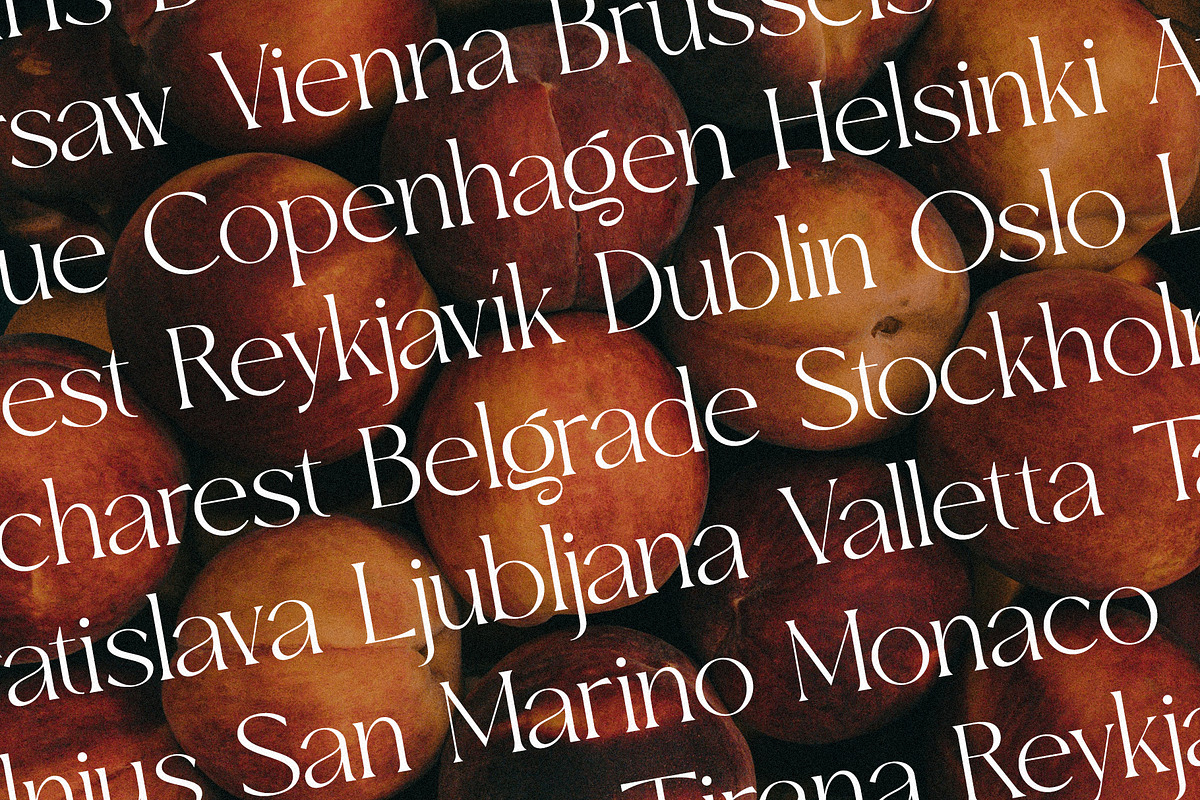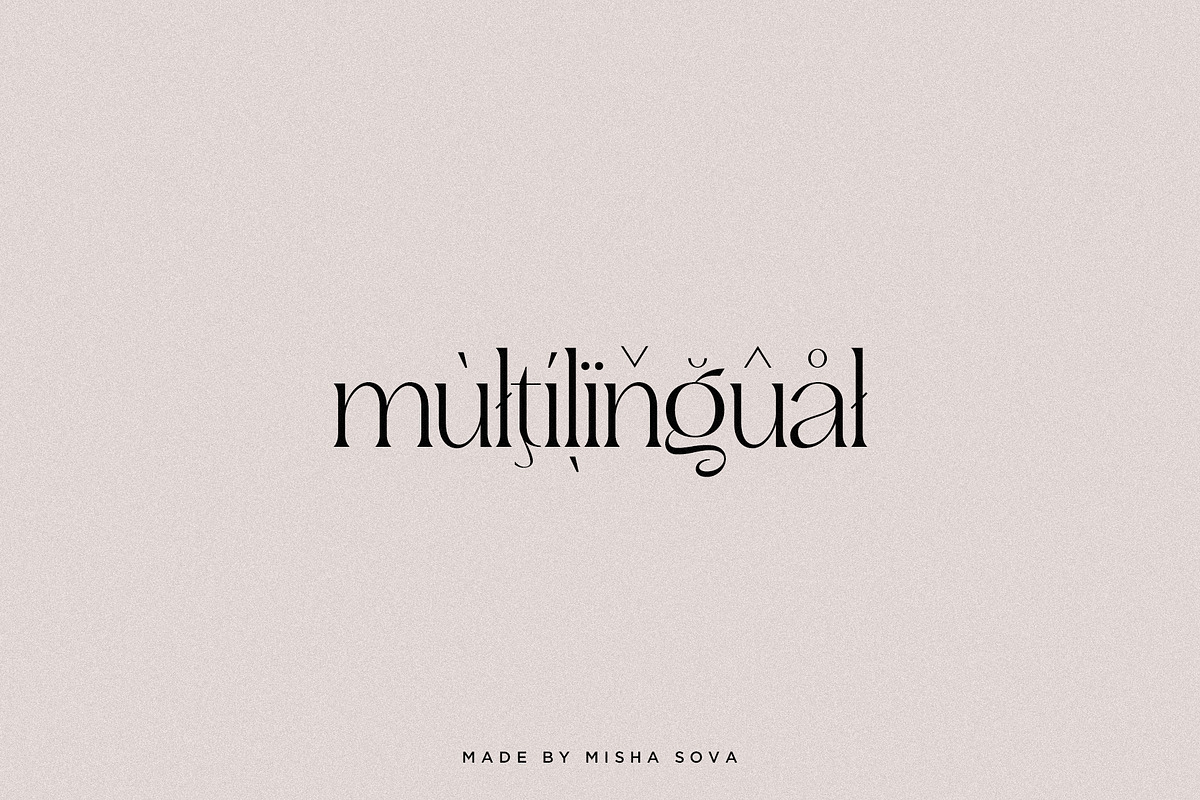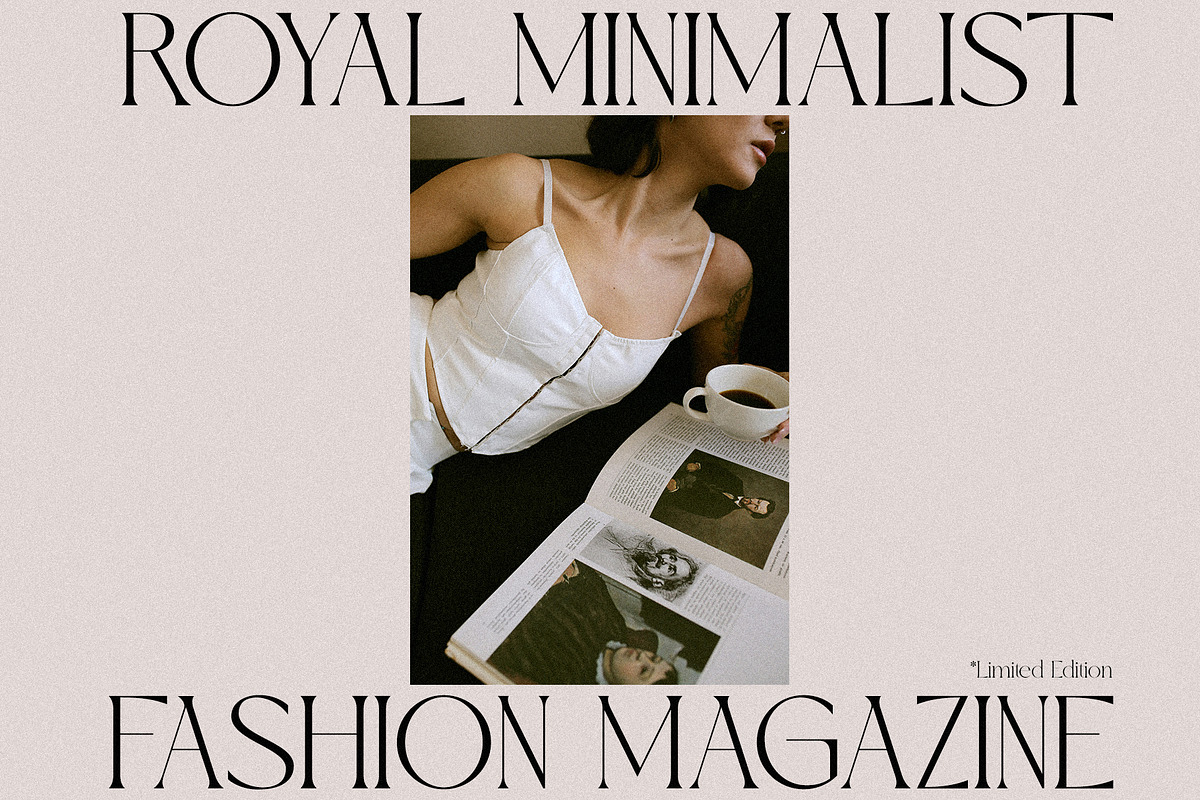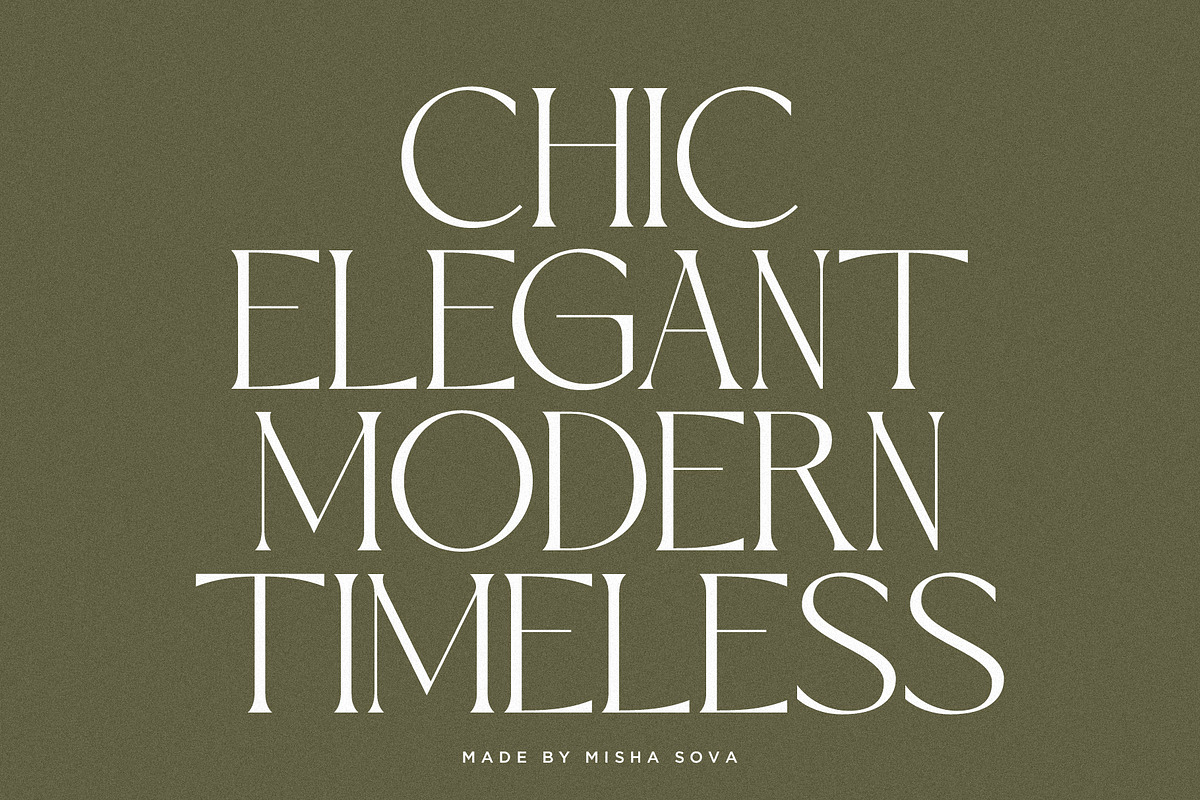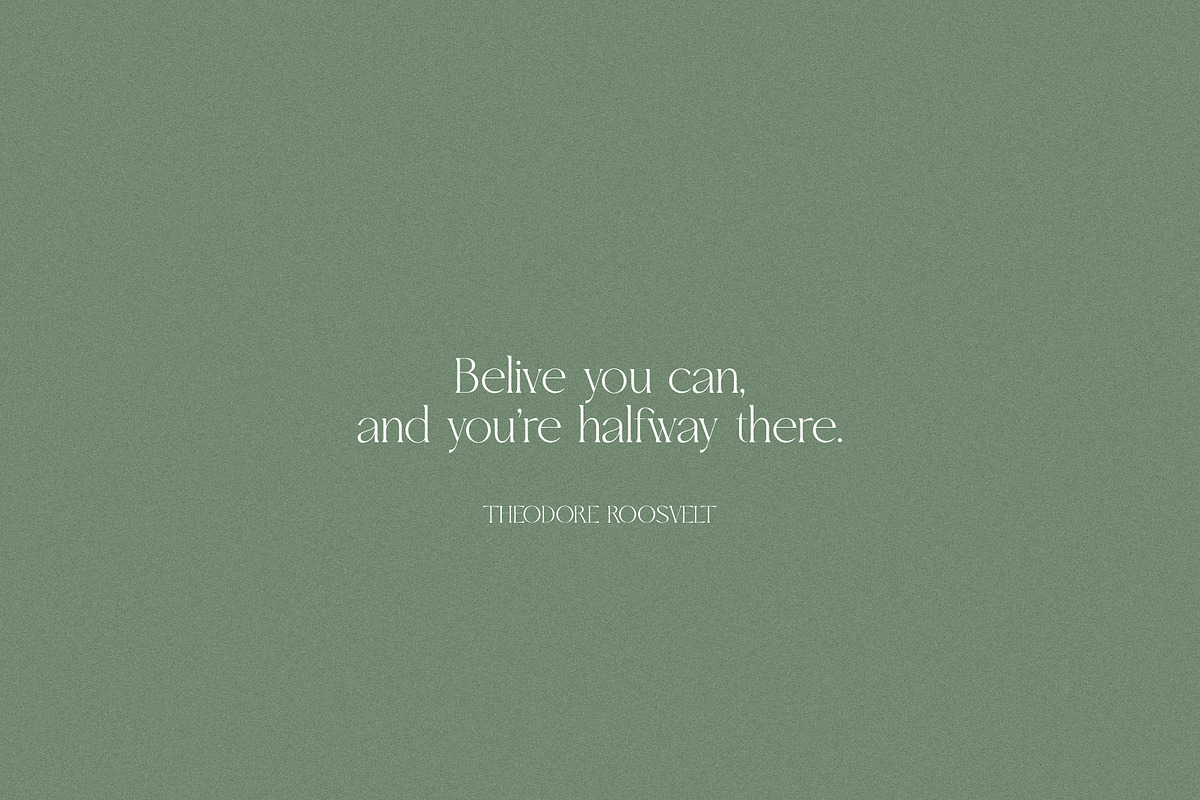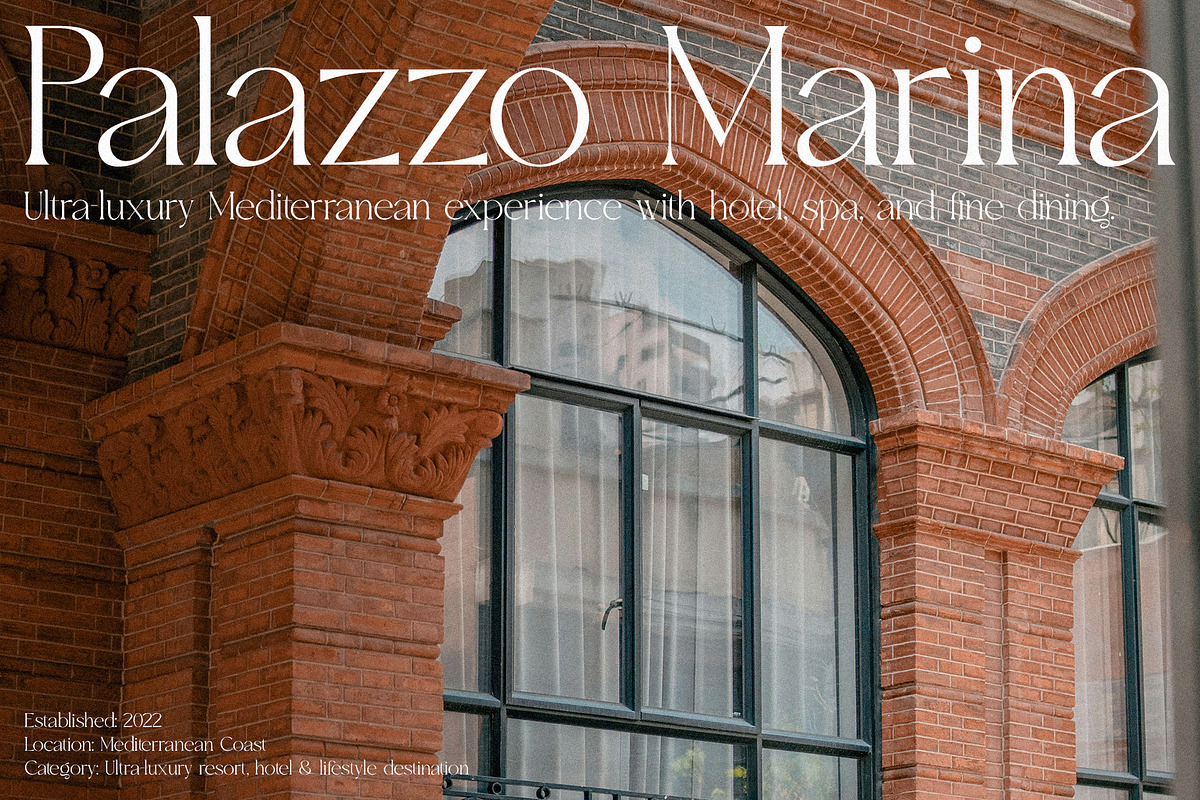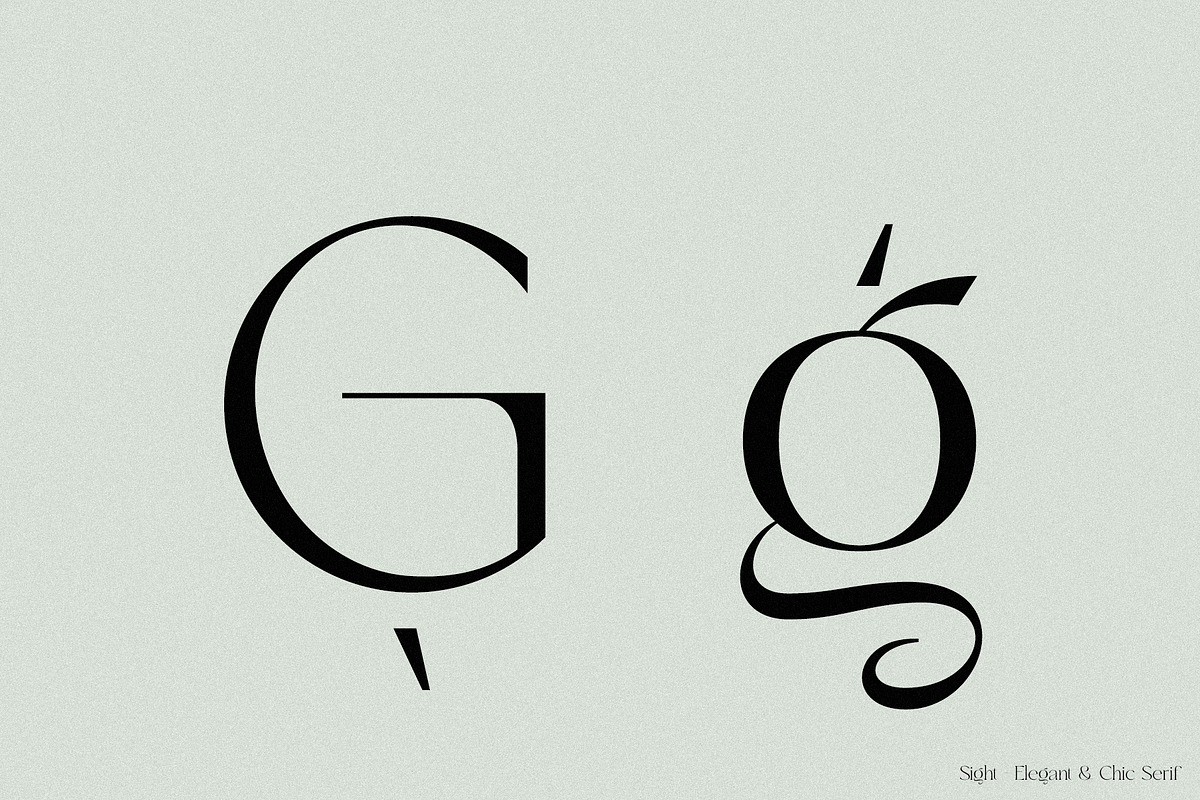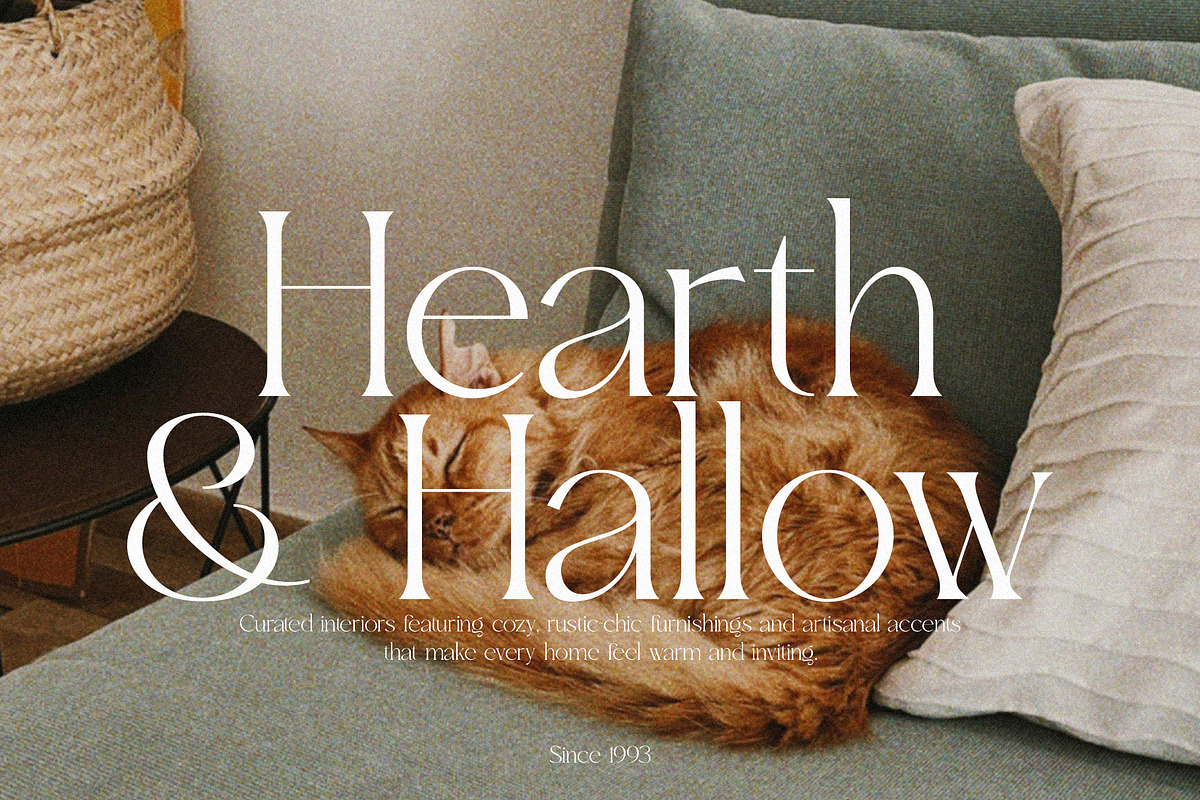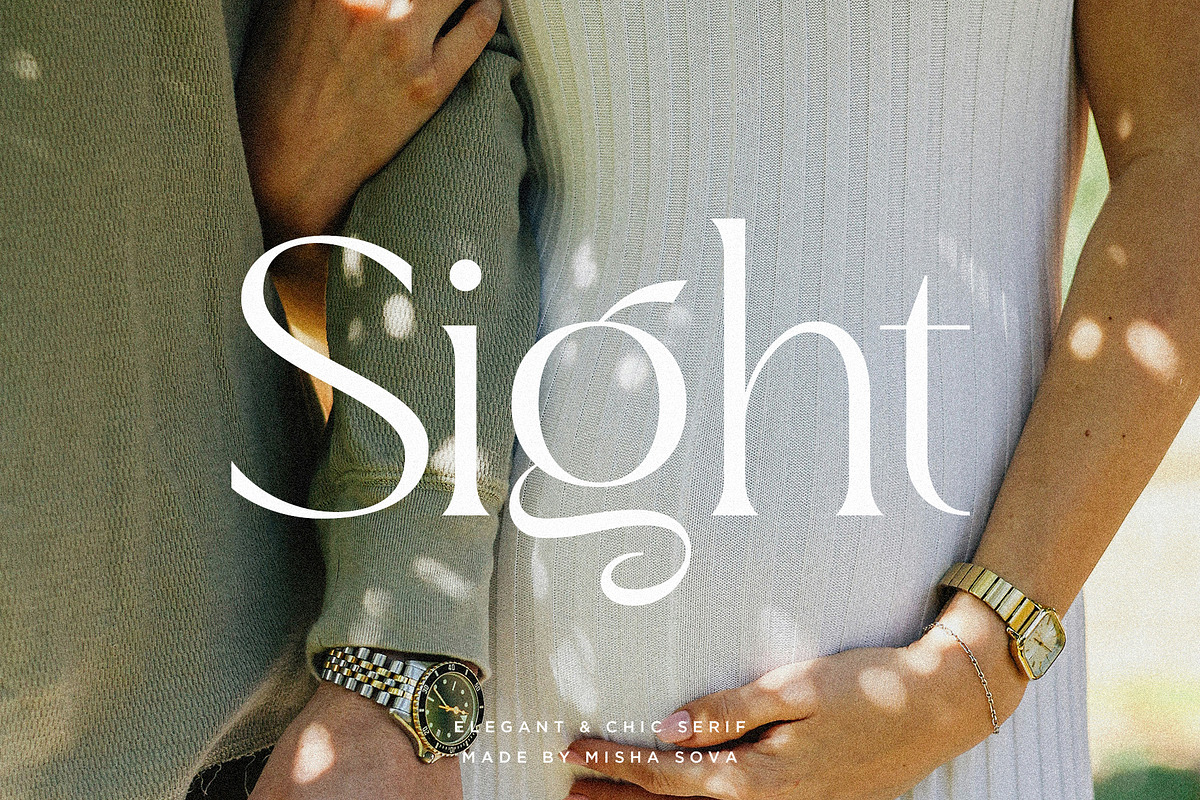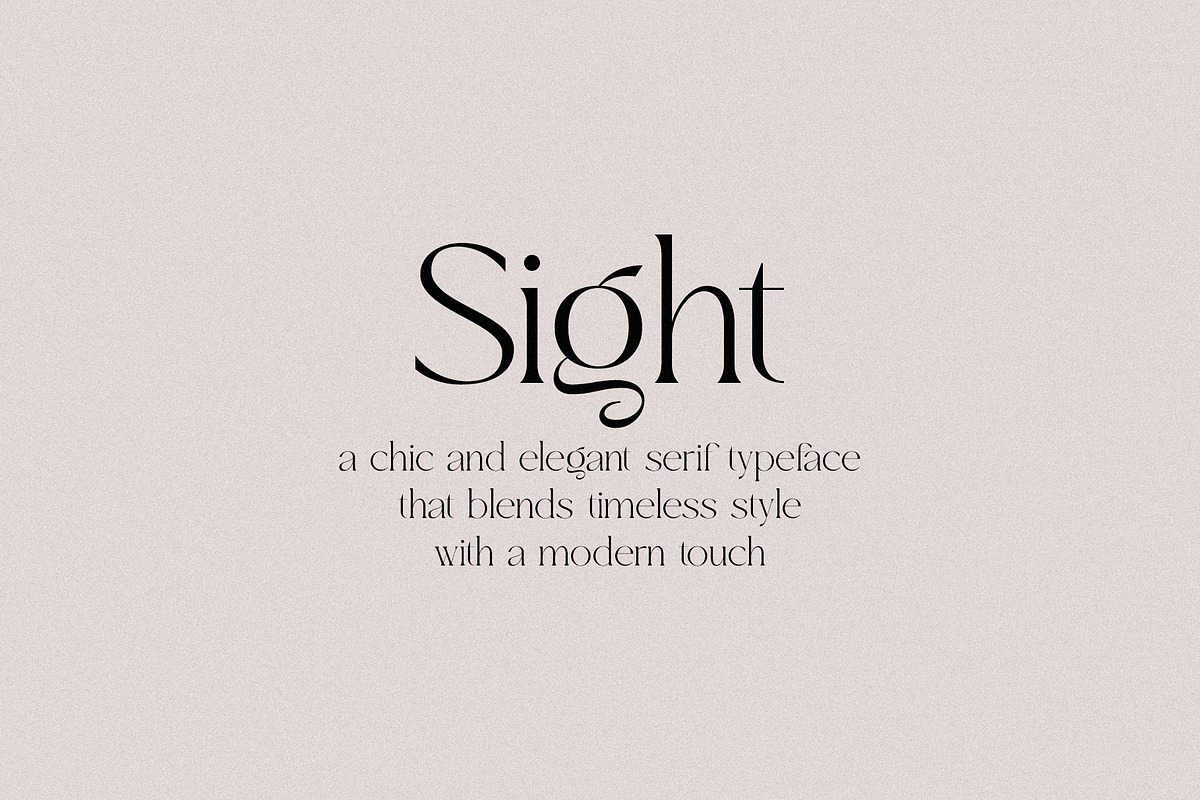
Sight - Elegant & Chic Serif
Sight - Elegant & Chic Serif by Misha Sova
Sight is a chic serif that effortlessly combines classic elegance with a modern, approachable feel. Its smooth, flowing serifs and balanced letterforms give text a refined yet welcoming presence, making it perfect for everything from branding and editorial layouts to packaging and digital design. Designed to shine in both headlines and body text, Sight adds clarity, harmony, and a subtle sense of style to any project, giving your words a quiet confidence and timeless appeal without ever feeling stiff or formal.